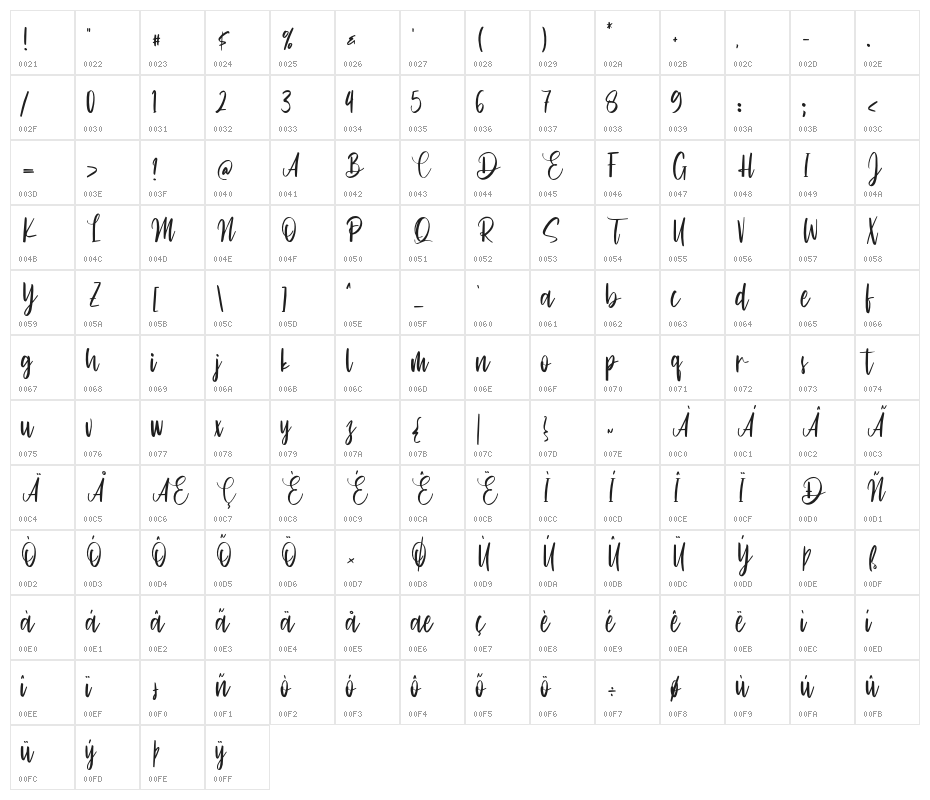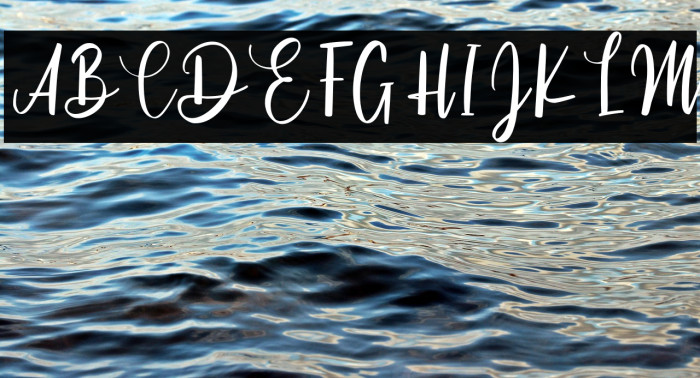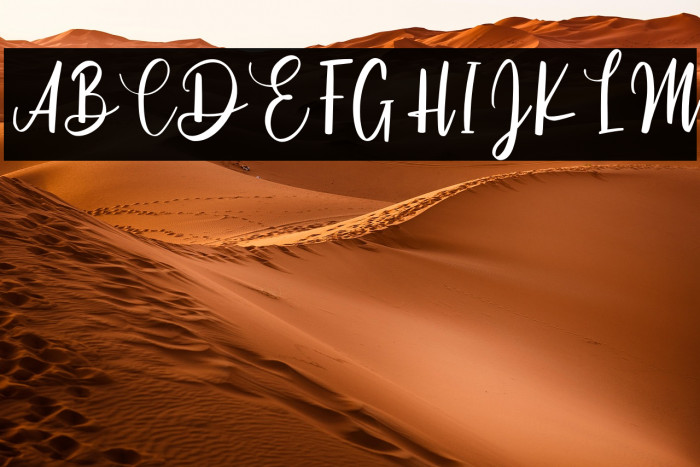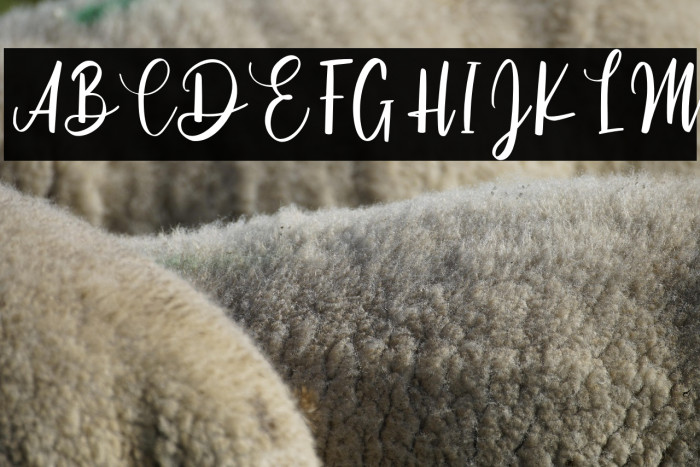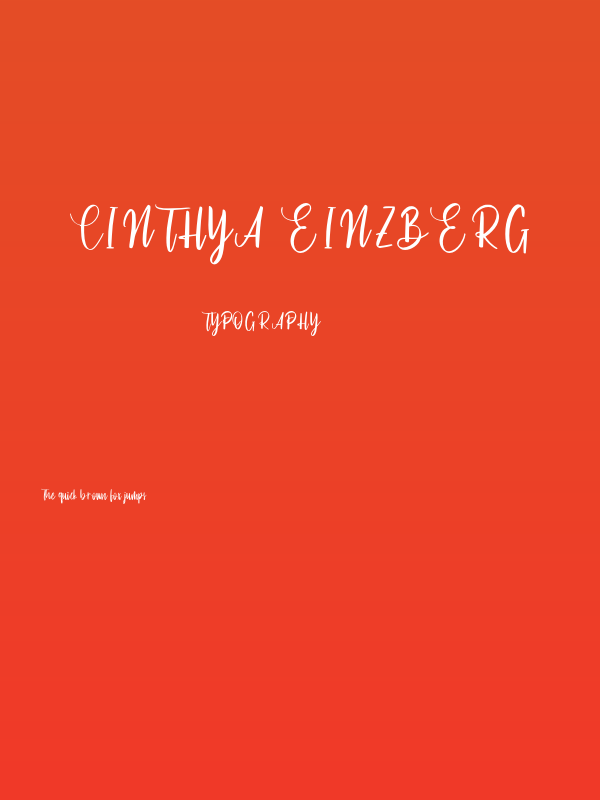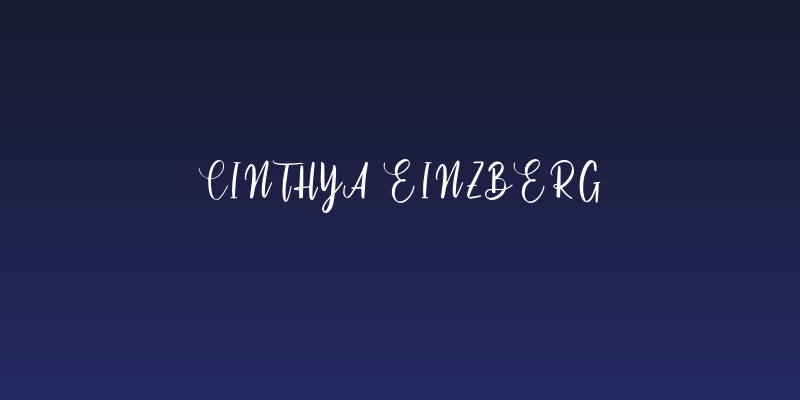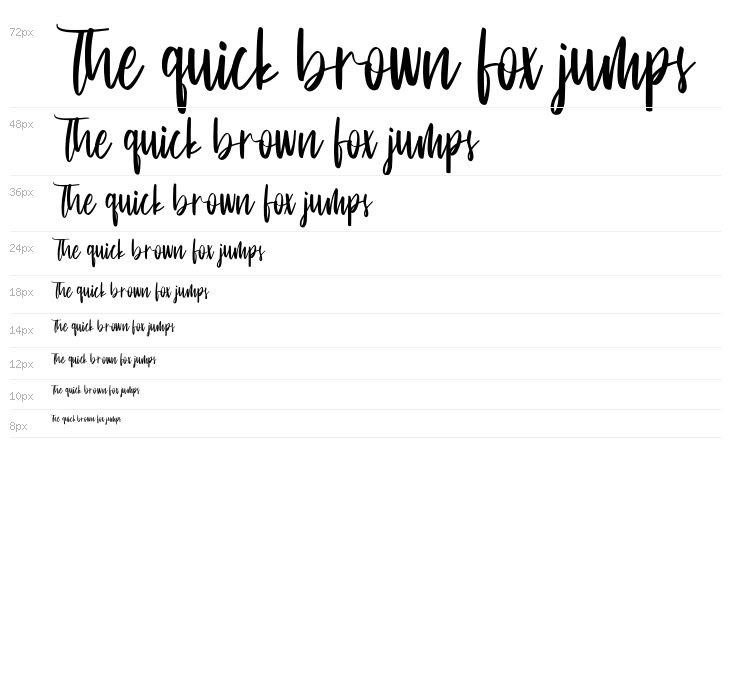
Cinthya Einzberg Font
Cinthya Einzberg Description
This font features a lively and expressive style with a handwritten appearance. The uppercase letters are bold and slightly slanted, giving a sense of movement and energy. The lowercase letters maintain a consistent flow, with some characters extending below the baseline, adding to the dynamic feel. The numbers are clear and legible, matching the playful yet sophisticated aesthetic. Special characters are well-integrated, maintaining the overall style. This font is ideal for projects that require a personal touch, such as invitations, greeting cards, or branding materials.
Use CaseHeadlines, Logos, Invitations
Proposed ProjectsIdeal for invitations, greeting cards, branding, and creative projects.